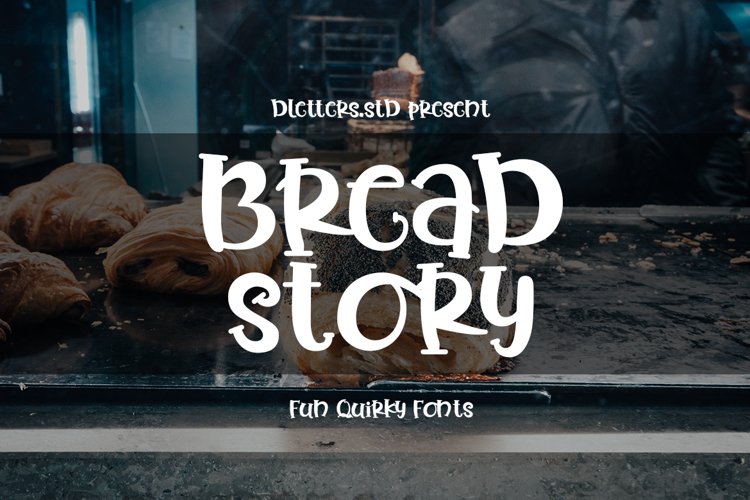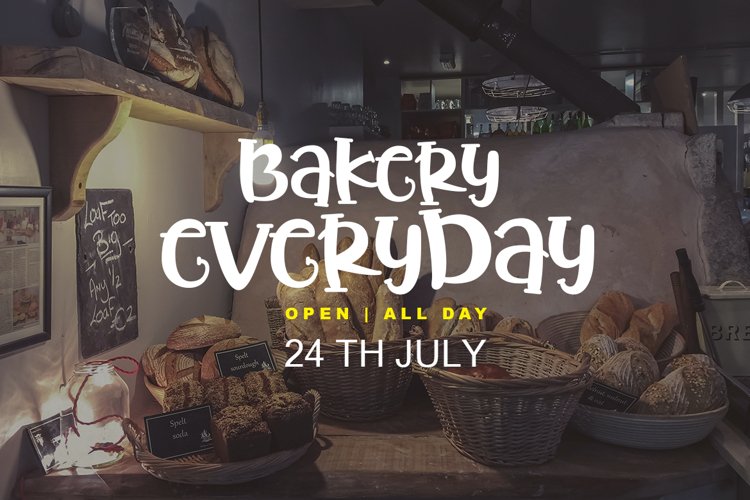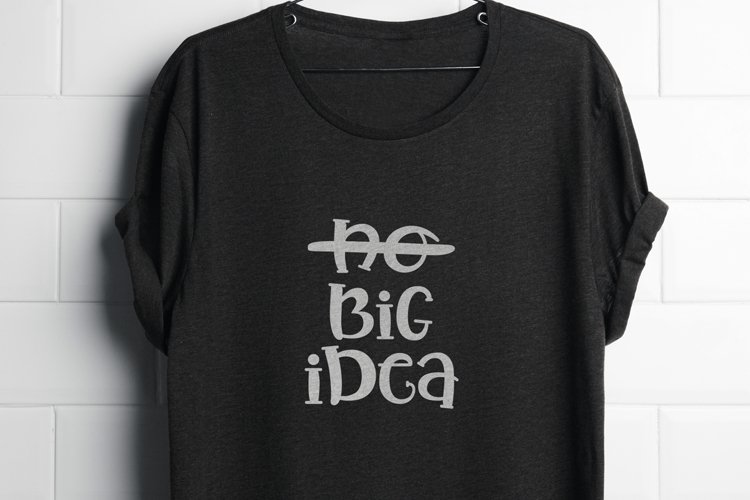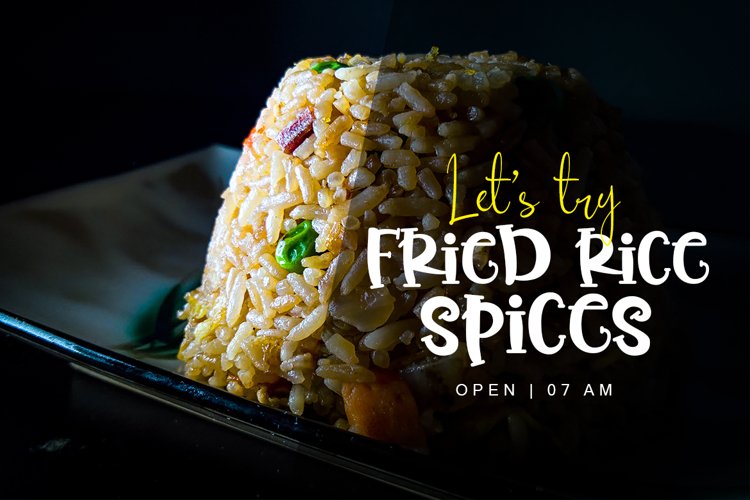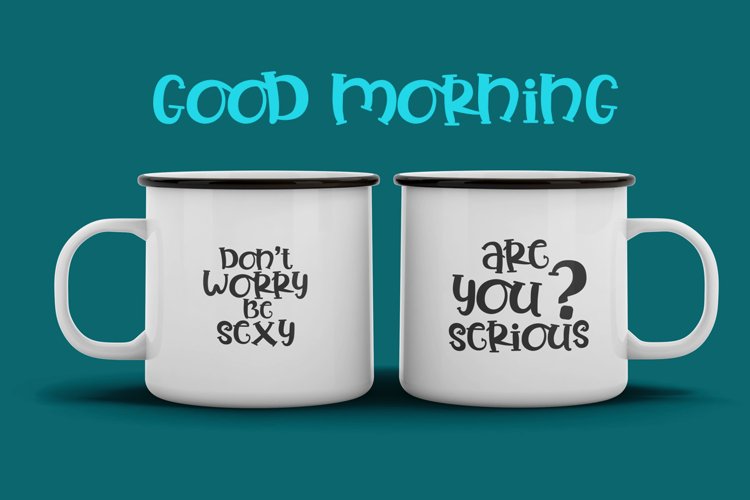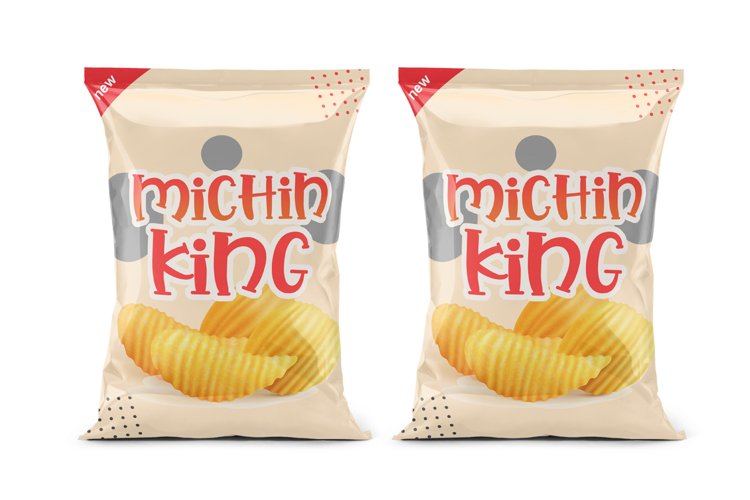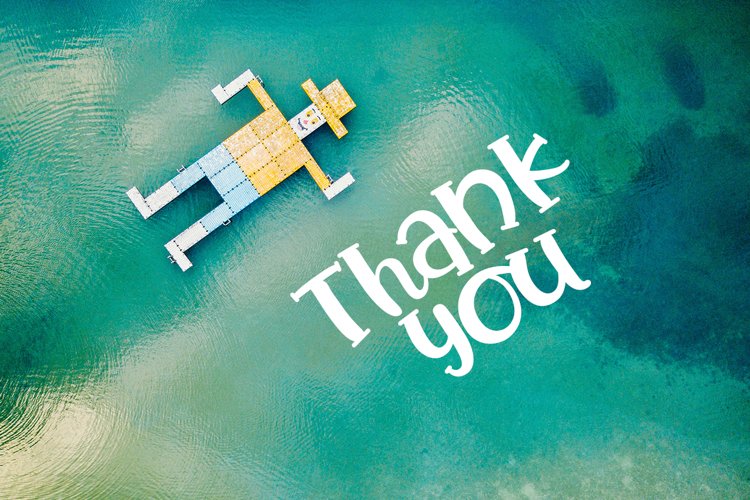
bread story fun quirky font
Introducing Bread Story, a set of unique and fun handwritten fonts, the style is simple and friendly. Bread Story is very versatile to implement a variety of creative ideas, such as Crafts, Cakes, T-shirts, Fashion, Quotes, Mugs, and Others.
Bread Story – Fun Quirky Font
Bread Story, a set of unique and fun handwritten fonts, the style is simple and friendly. Bread Story is very versatile to implement a variety of creative ideas, such as Crafts…